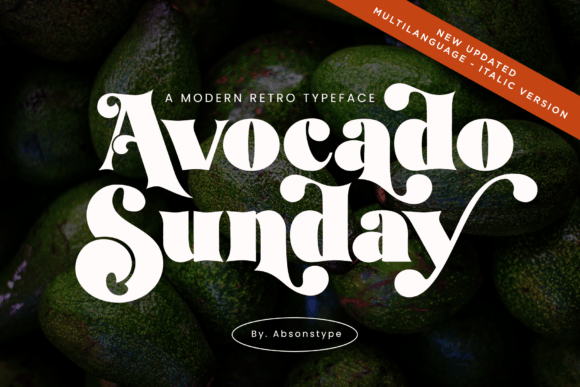
The Ultimate Design Game-Changer: Avocado Sunday Font
I’ll never forget the design project that had me stuck in a creative rut. I was working on a branding campaign for a trendy new cafe, and I just couldn’t find the right font to capture their playful yet sophisticated vibe. That was until I stumbled upon Avocado Sunday Font. 💡
This bold and expressive modern retro typeface has been a total game-changer for my design workflow. With its unique blend of playful vintage flair and sharp contemporary precision, Avocado Sunday instantly elevates any design with charm and personality. In this article, I’ll dive into what makes this font so special, how to use it, and who can benefit from its awesomeness.
What Makes Avocado Sunday Font So Good?
So, what sets Avocado Sunday apart from other fonts out there? Here are some of its standout features:
- ✨ Combines retro charm with modern legibility
- ✅ Unique high-contrast letterforms with whimsical flair
- 🔥 Stylized terminals and creative curves add a distinctive character
- ⚖️ Perfect balance between playfulness and elegance
I’ve been using Avocado Sunday for a while now, and here are some things that I absolutely love about it:
- 💥 The font’s bold and expressive personality is perfect for making a statement.
- 📸 The high-contrast letterforms add a touch of sophistication to any design.
- 🎉 The stylized terminals and creative curves make it super versatile.
While Avocado Sunday is an amazing font, there are a few minor quirks to be aware of:
- 🤔 Some of the swashes and stylistic alternates can be a bit finicky to access.
- ⚠️ The font’s boldness can sometimes make it tricky to use in smaller sizes.
The Backstory Behind Avocado Sunday
Avocado Sunday was designed with the intention of capturing the perfect blend of retro charm and modern sophistication. The designer, inspired by the nostalgic vibes of old-school advertising and signage, sought to create a font that would bring a fresh twist to classic aesthetics. The result is a bold, expressive typeface that’s perfect for making a statement.
Q: What makes Avocado Sunday so versatile?
A: Avocado Sunday’s unique blend of retro charm and modern sophistication, combined with its stylized terminals and creative curves, makes it super versatile for various design applications.
Q: Is Avocado Sunday suitable for body text?
A: While Avocado Sunday is perfect for headlines and titles, it might not be the best choice for body text due to its boldness and high-contrast letterforms. It’s best used for making a statement or adding a touch of personality to your design.